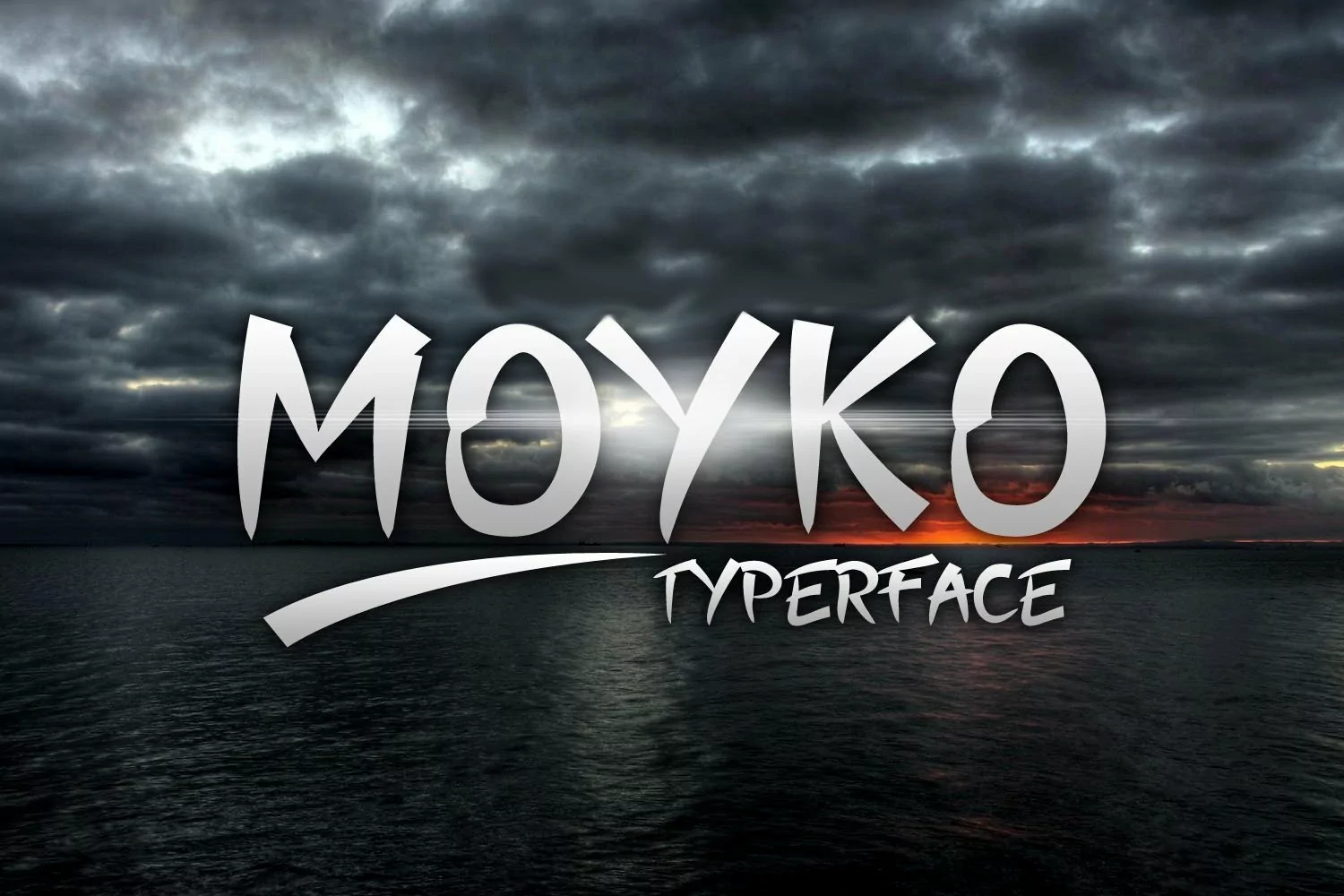
Mokyo typeface takes its inspiration from Chinese typography. It’s modern style is suitable for oriental projects, perfect for menu’s, book covers, posters and more.